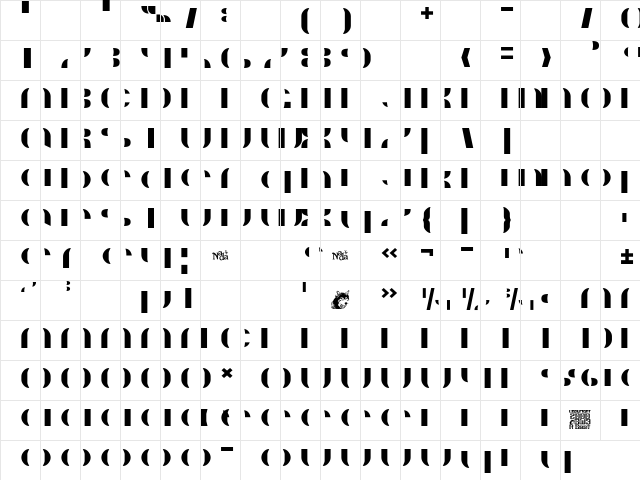
Suncatcher Fill Regular Free Font
Suncatcher Fill Regular
Foundry: GreyWolf WebWorks
Designer: Rich Gast
Design Context for Suncatcher Fill
Suncatcher Fill is a composed and adaptable typeface that performs quietly and consistently across a wide range of design contexts.
Pro Tip: Use Suncatcher Fill in both headline and body roles to test its range before committing to a single application.